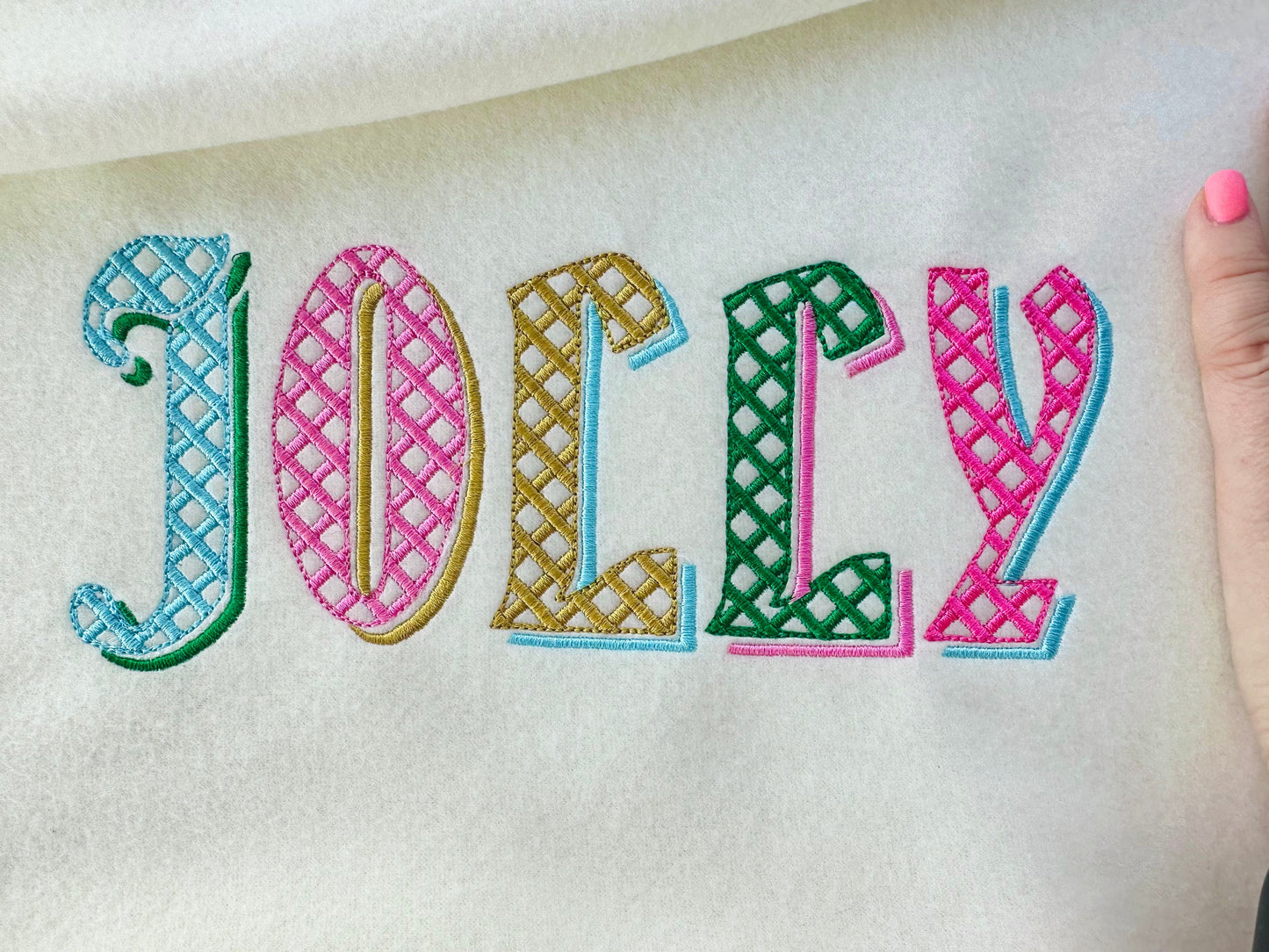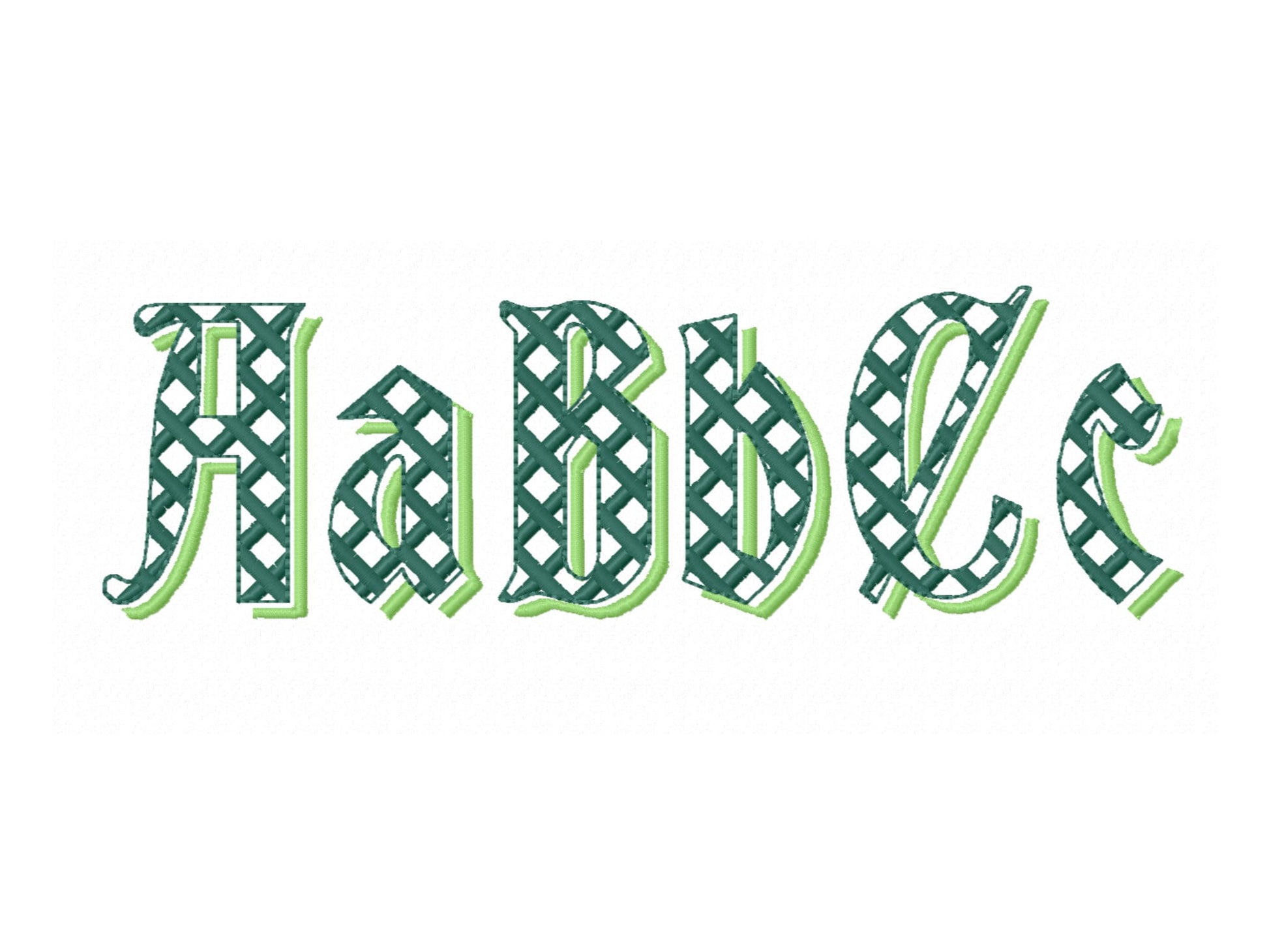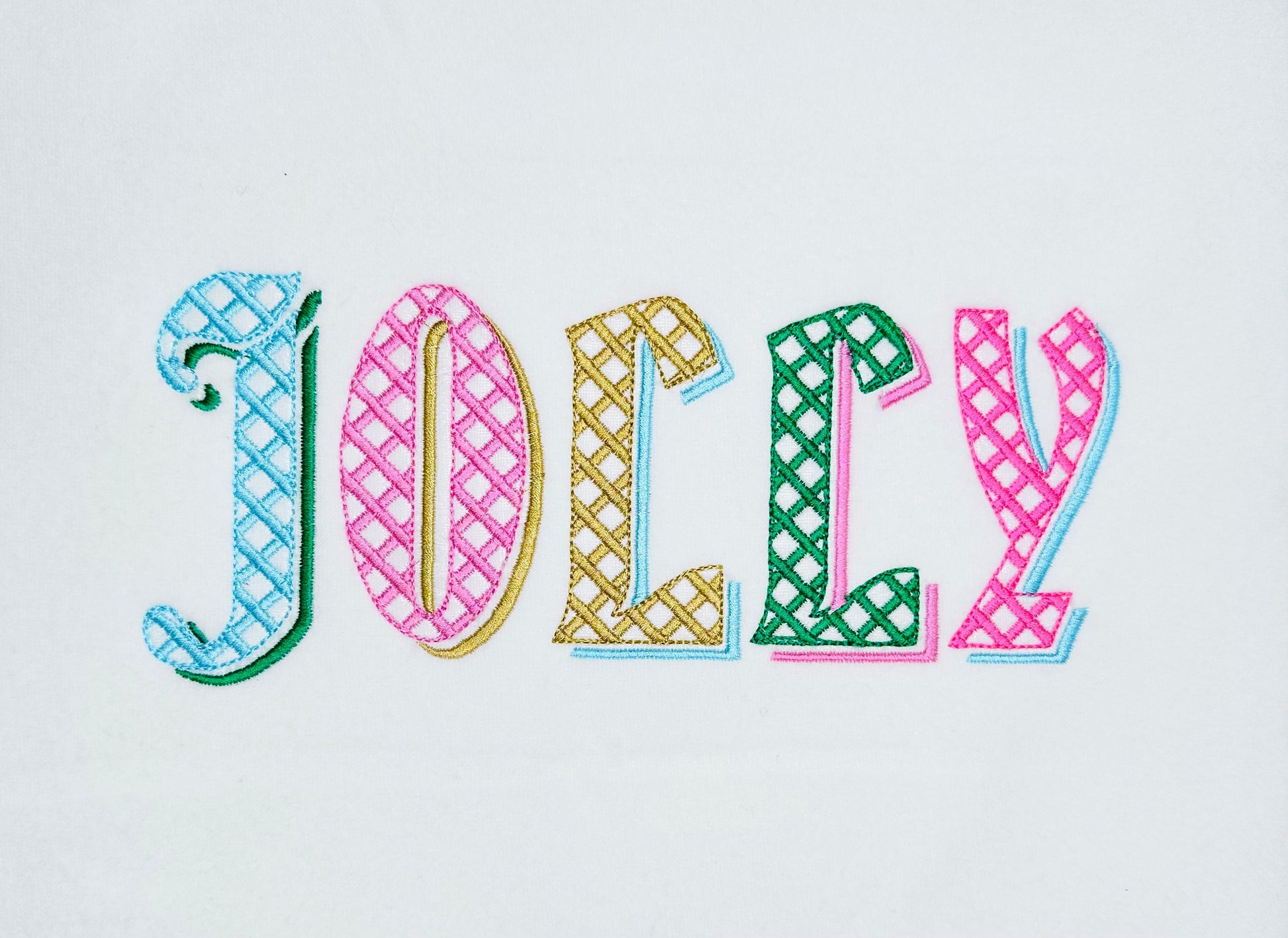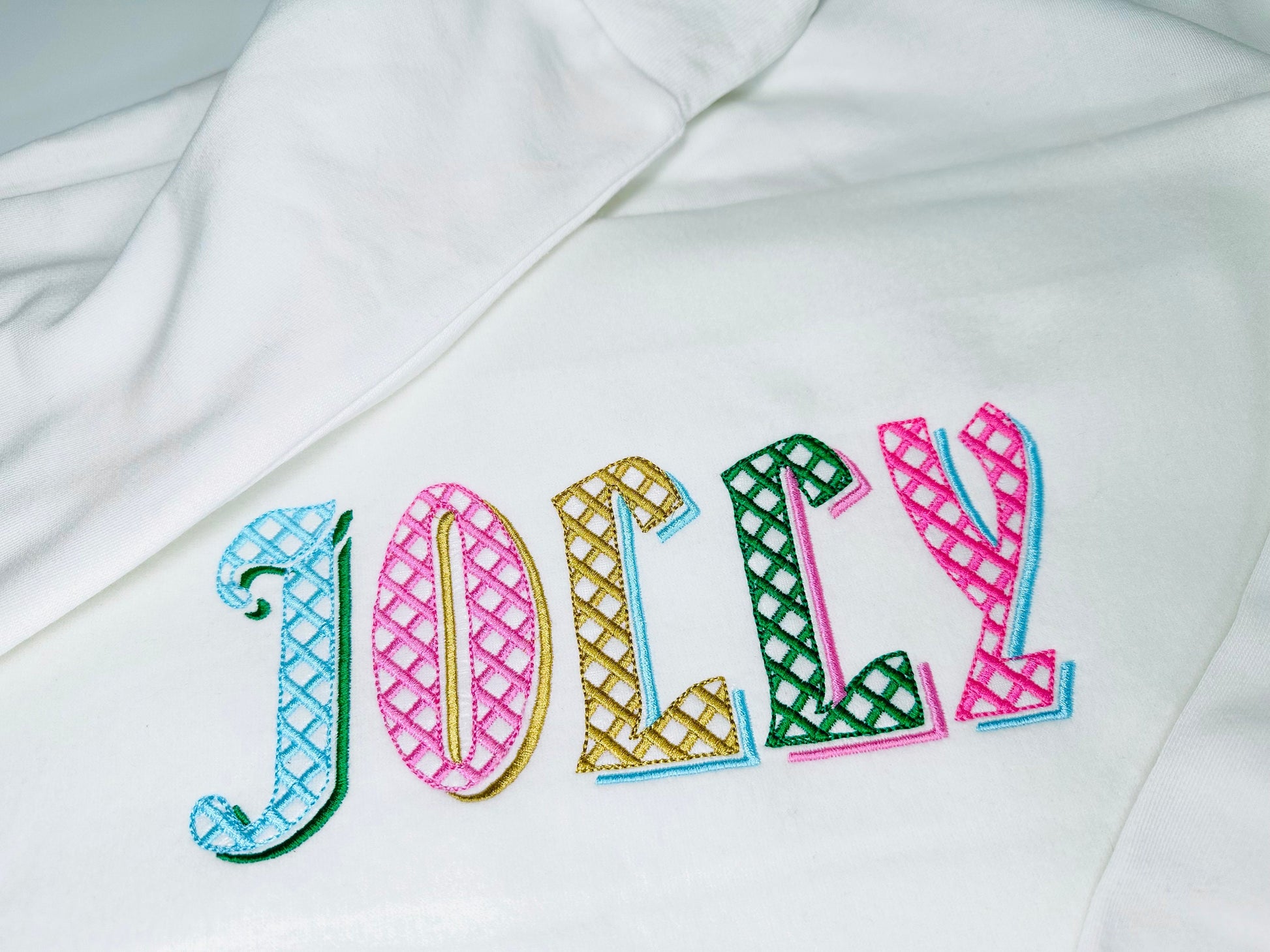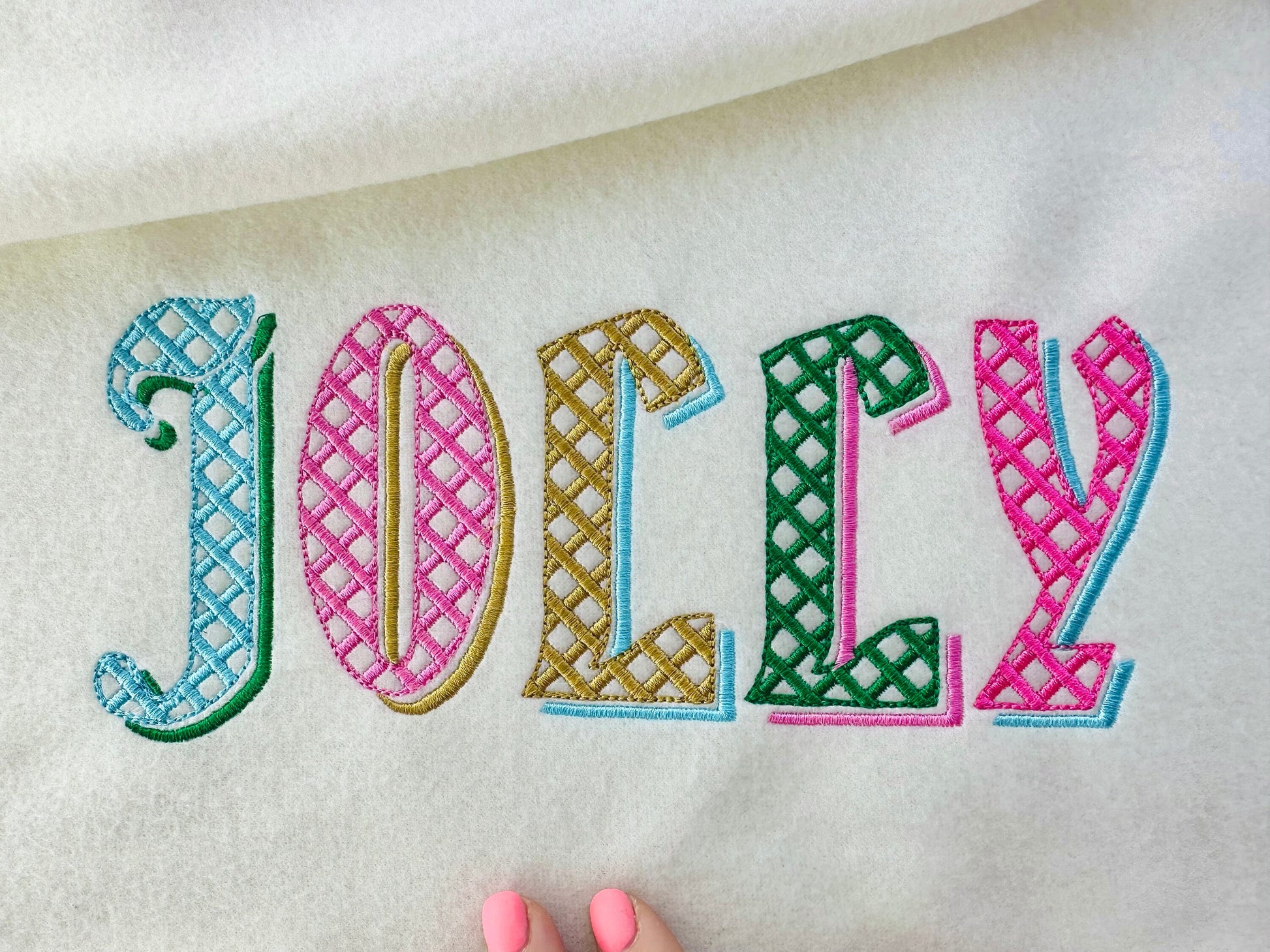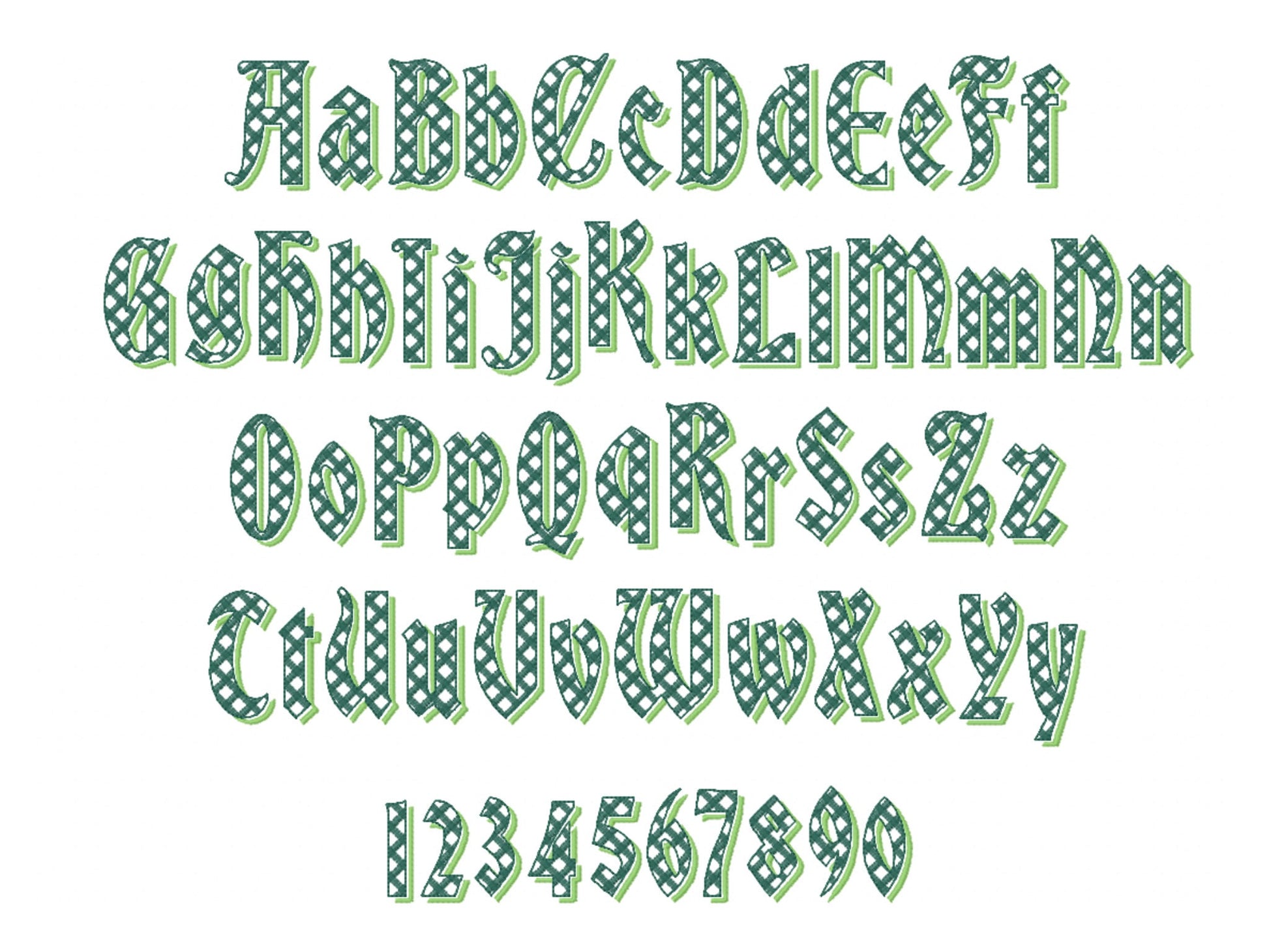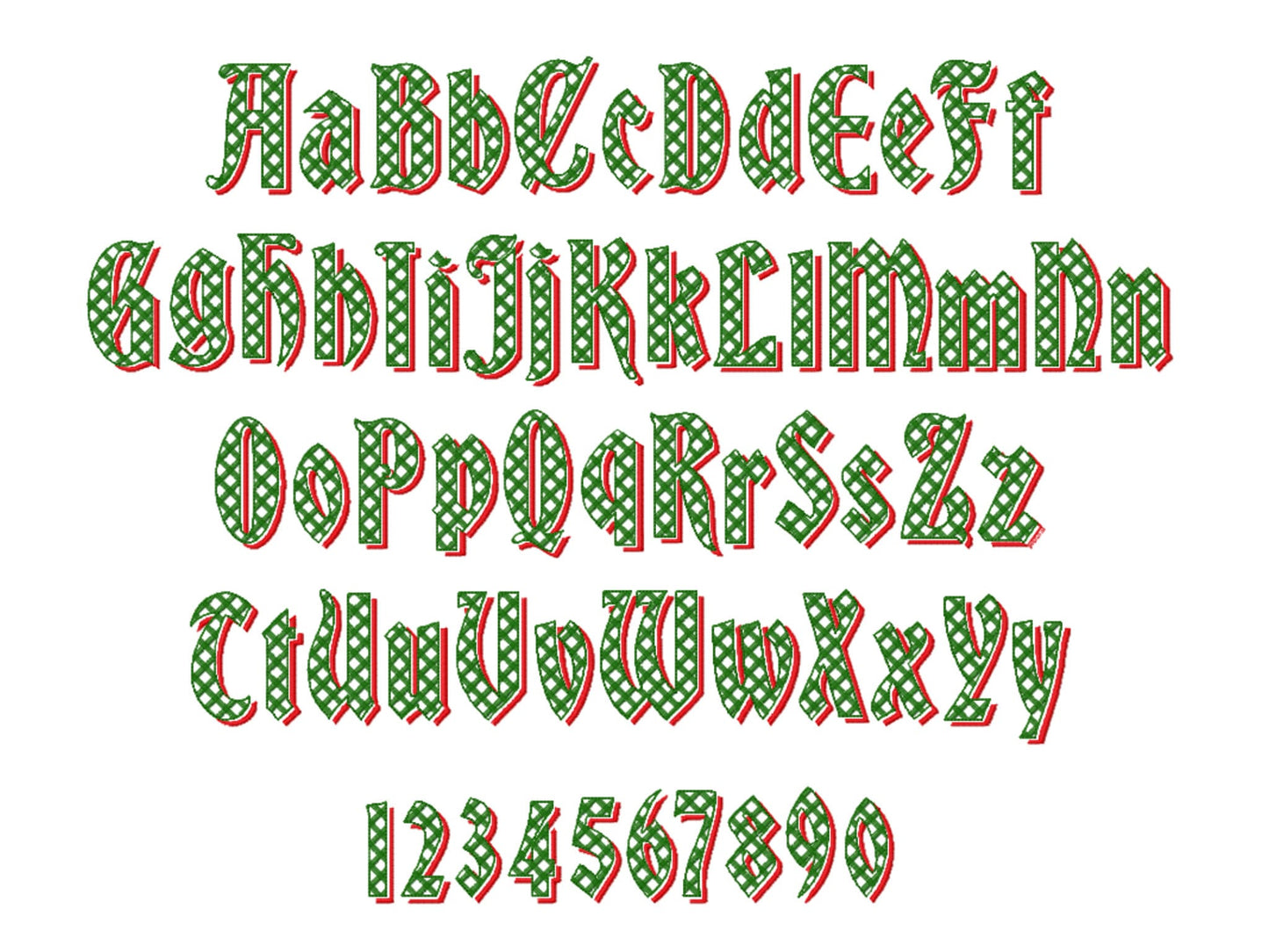
Checkered Shadow Font
Or click to open the linkA shadow font with a checkered pattern in light stitching, so the fabric shows through. Great for Christmas stockings, shirts, pillows and names.
Uppercase and lowercase letters and numbers 0 to 9 in seven sizes: 1.2, 1.5, 1.8, 2.3, 2.7, 3.3 and 4 inches.
- Checkered shadow light stitch font
- Uppercase and lowercase letters, numbers 0-9
- 7 sizes, 1.2 to 4 in